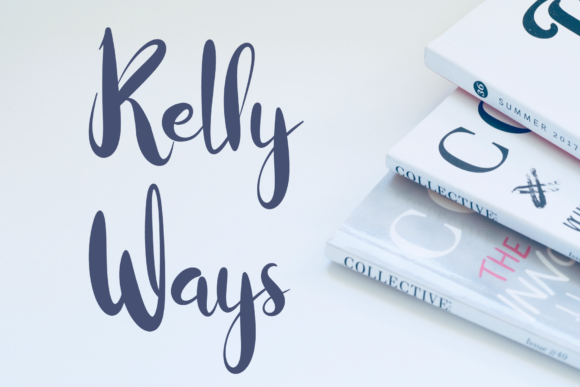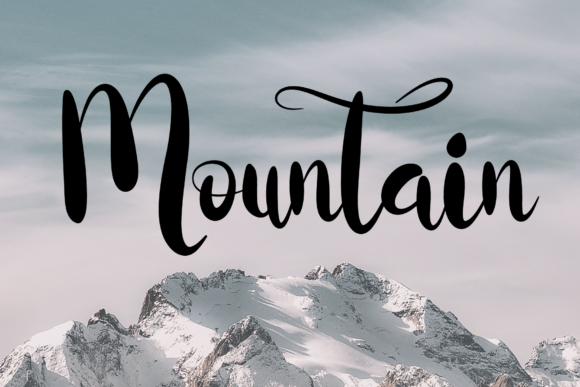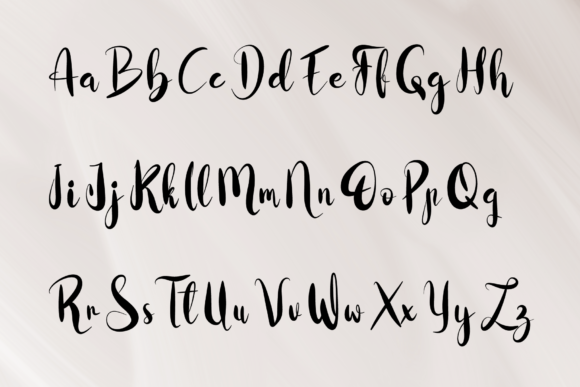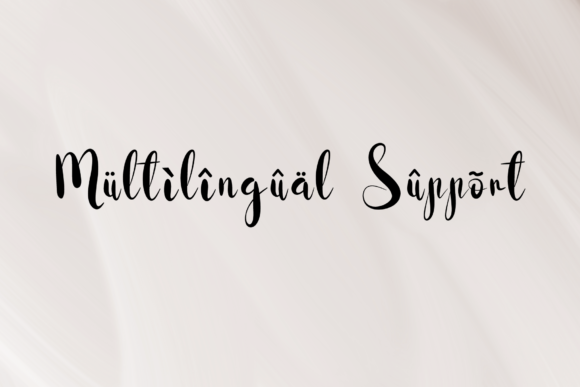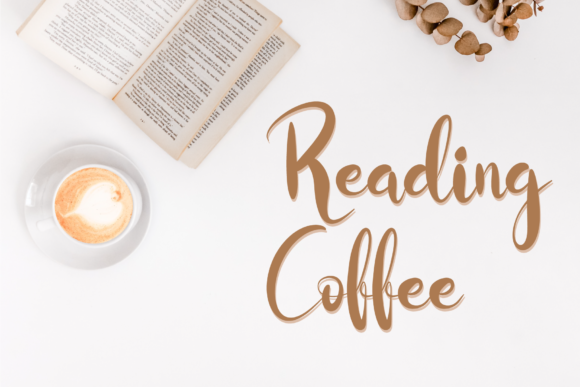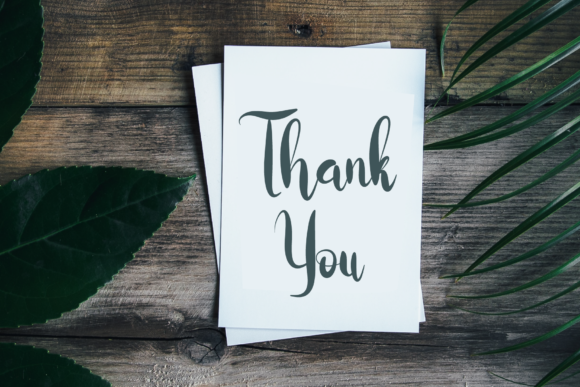
Introduction to Olla Tear Font
Olla Tear is a trendy and stylish script font.
Key Features of Olla Tear Font
Why Choose Olla Tear Font?
Olla Tear Font offers exceptional quality and versatility, making it a valuable addition to your design toolkit. Whether you’re creating for personal projects or commercial use, Olla Tear Font delivers professional results.